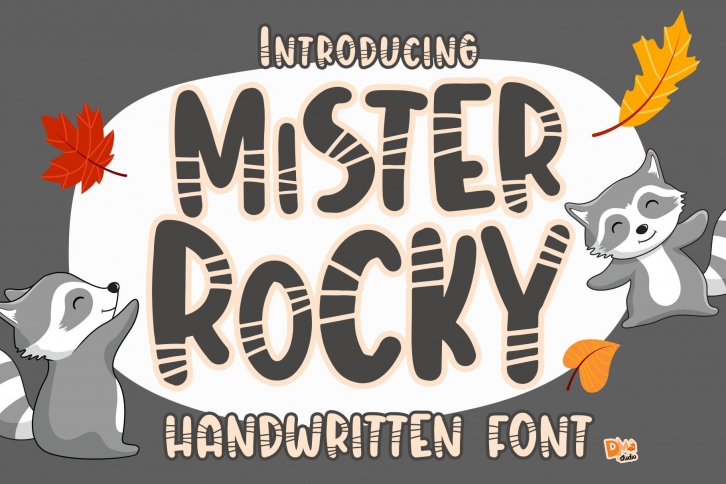
Mister Rocky - Handwritten Font Download
Mister Rocky is a great font that was designed by DMletterstudio. Imagine the amount of combinations you can create using this font! The archive is 4.88 MB and it was released on July 3, 2020. Mister Rocky looks beautiful on wedding invitations, greeting cards, logos, posters, labels, t-shirt designs, logos, business cards and is perfect for use in ink or watercolor works, fashion, magazines, packaging and food menus, children's books and more!